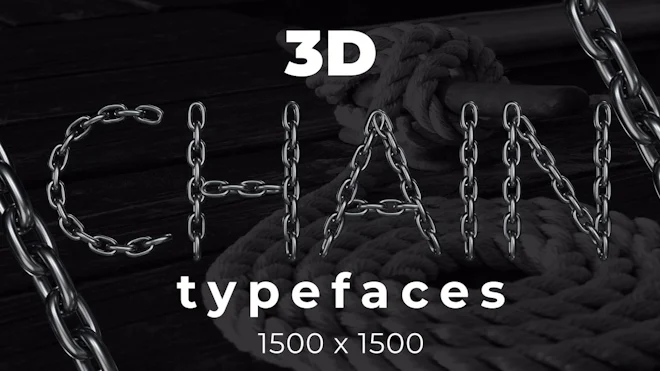
This stock motion graphics video pack includes 48 different clips of animated 3d metal chain letters, numbers and symbols on a transparent alpha channel in a seamless loop.